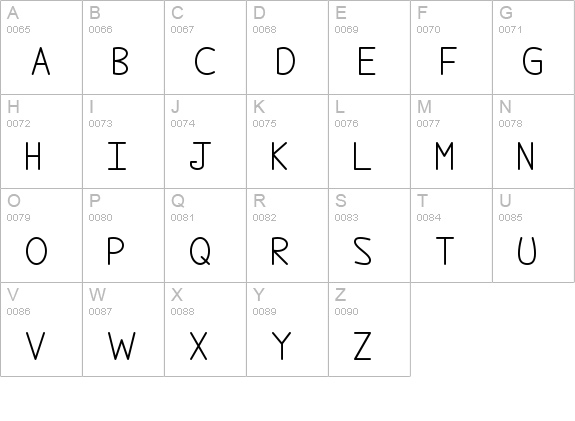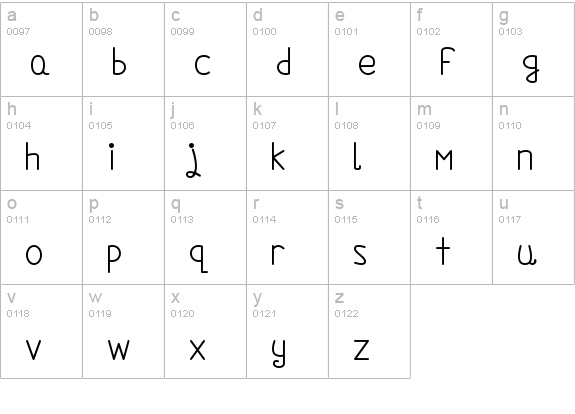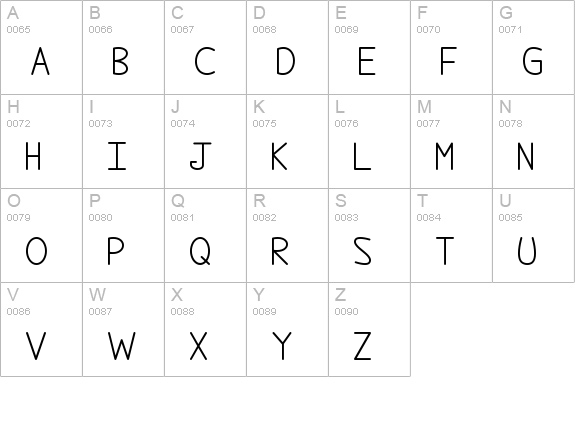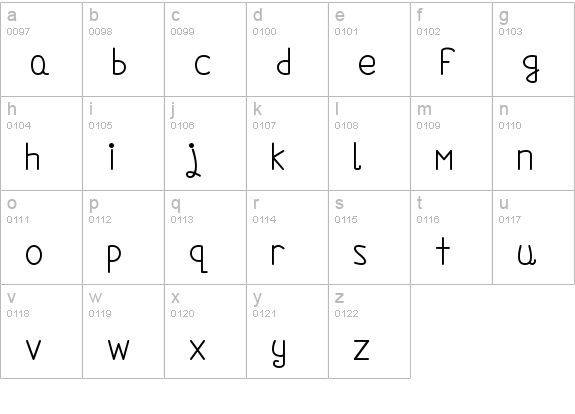
Introducing the mesmerizing and enchanting We Are In Love font, a true testament to the beauty of love and passion. This typeface effortlessly captures the essence of romance, making every word written with it feel like a heartfelt declaration. The elegant curves and delicate strokes of this font evoke a sense of tenderness and affection, creating a truly captivating visual experience. We Are In Love font is not only aesthetically pleasing, but also incredibly versatile. Its unique design allows it to be used in a wide range of projects, from wedding invitations and love letters to branding and logo designs. Whatever the occasion, this font is sure to add a touch of elegance and charm. And the best part? We Are In Love font is freely available for download at FontsMarket.com. Say goodbye to expensive fonts that restrict your creative endeavors – with this font, you have the freedom to express your emotions and tell your love story without any limitations. Whether you're a professional designer or a passionate DIY enthusiast, this font gives you the power to create stunning visuals that truly speak from the heart. So why wait? Embrace the magic of love with We Are In Love font. Download it now at FontsMarket.com and let your creativity soar to new heights. Whether you're designing for personal or commercial use, this font will surely leave a lasting impression on anyone who lays eyes on it. Spread the love and let your words come alive with We Are In Love font – the perfect choice for all your romantic endeavors.